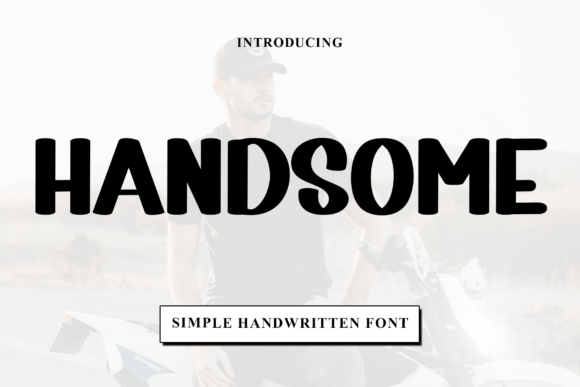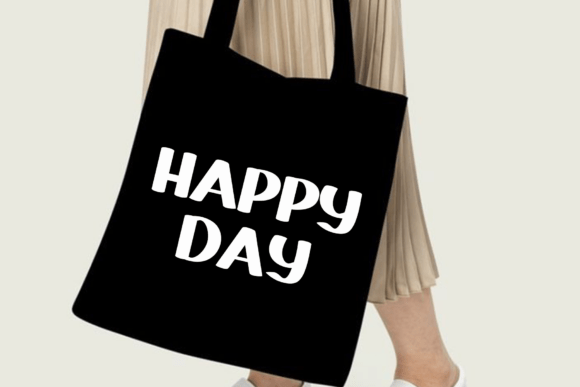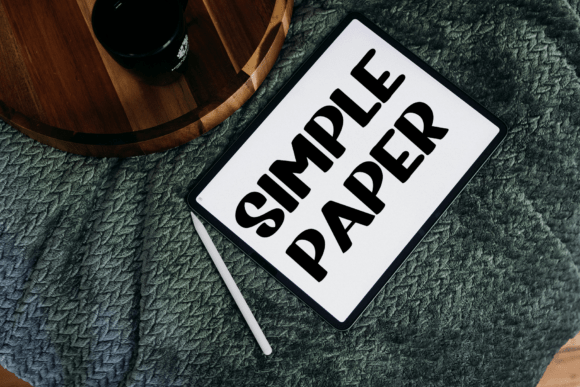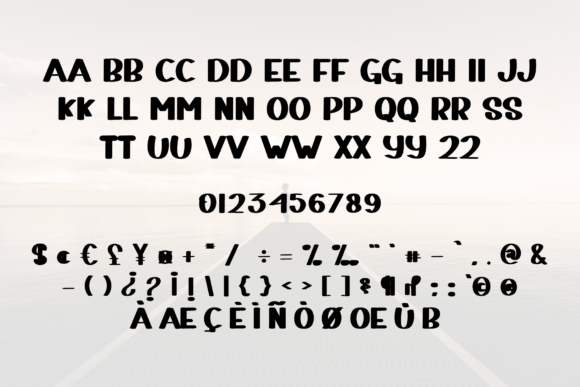
Handsome Font
About the Handsome Font
Step up your design game with Handsome Font, a font that exudes confidence and style. Handsome is a sweet and friendly handwritten font. Fresh and casual, this font is ideal for writing wedding invitations, cards, or any other design that might need a lovely touch.
Its friendly, casual style makes it perfect for branding projects needing a warm, approachable feel, particularly in stationery, logos for small businesses, or social media graphics. It also works well on short-form content like posters and packaging where readability isn’t paramount over aesthetic appeal. However, avoid using Handsome for body text or lengthy paragraphs; its handwritten nature compromises readability at smaller sizes.
Handsome’s informal charm is best complemented by pairing it with a clean sans-serif like Lato for body copy or a geometric sans-serif for a modern contrast. For a more traditional feel, a classic serif like Garamond would provide a sophisticated counterpoint. Avoid pairing it with other script fonts, as this might create visual clutter.
Handsome’s core personality is undeniably friendly and approachable, conveying warmth and a sense of casual elegance. It’s best suited for brands targeting a younger demographic or those wishing to project a personable, human-centric image.
Handsome Font Usage Examples
Handsome Font Example